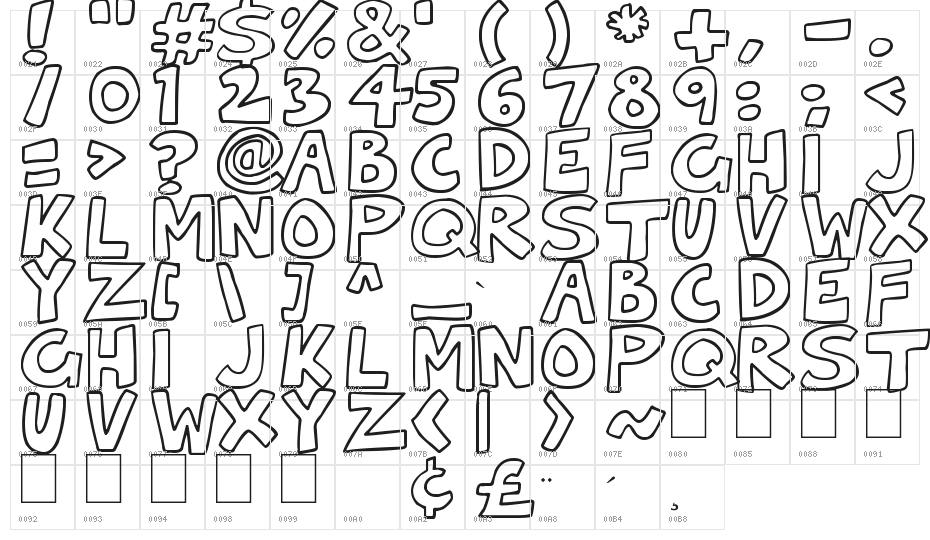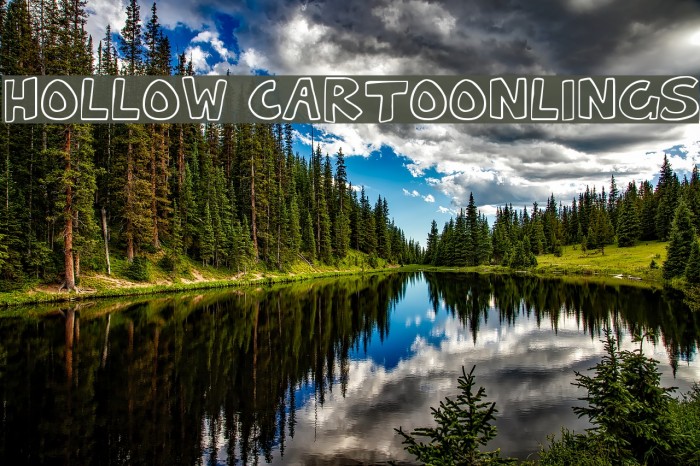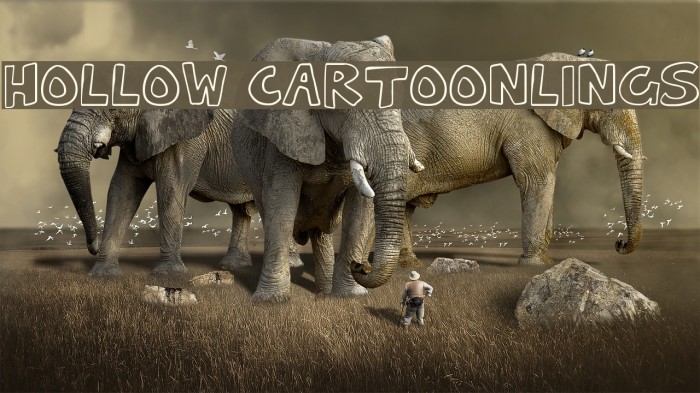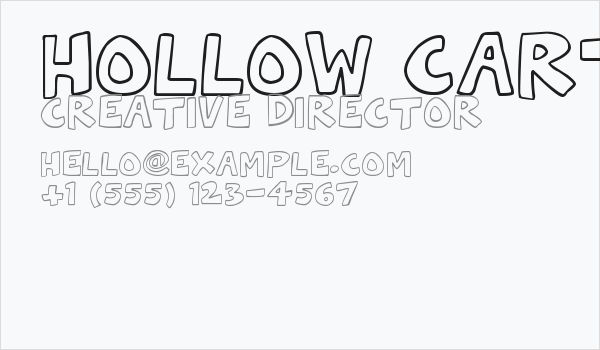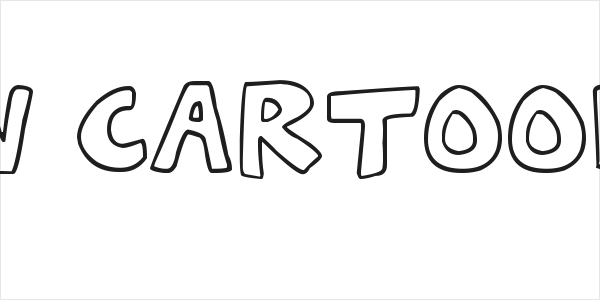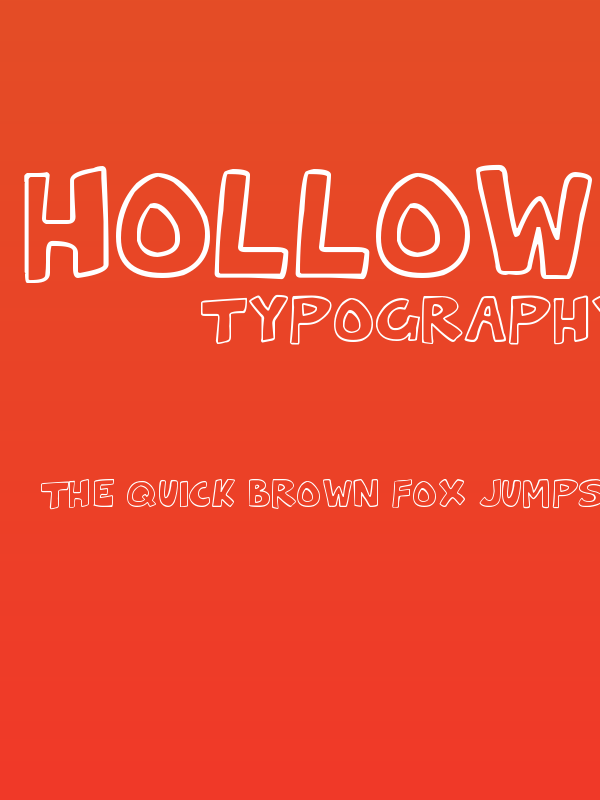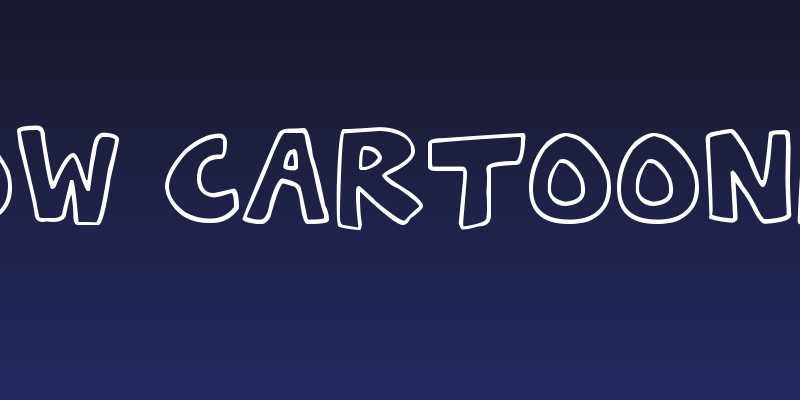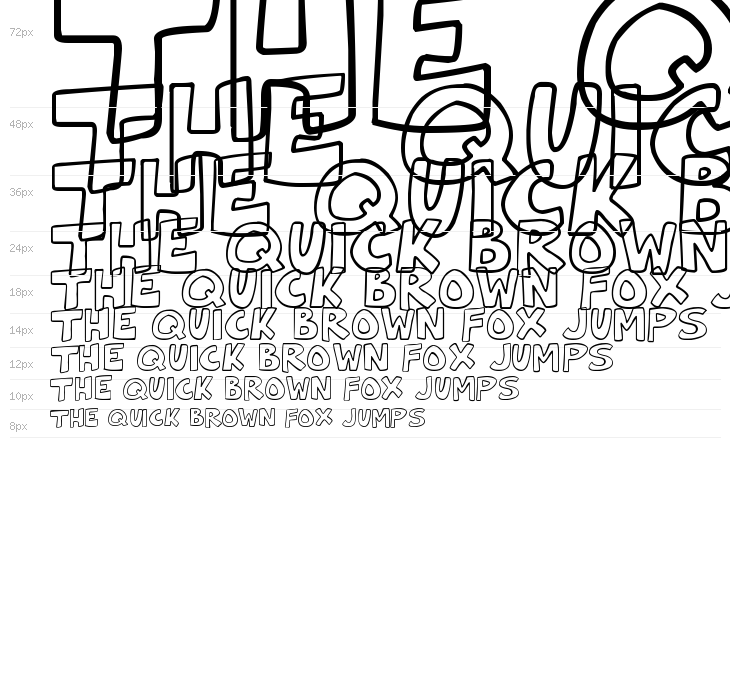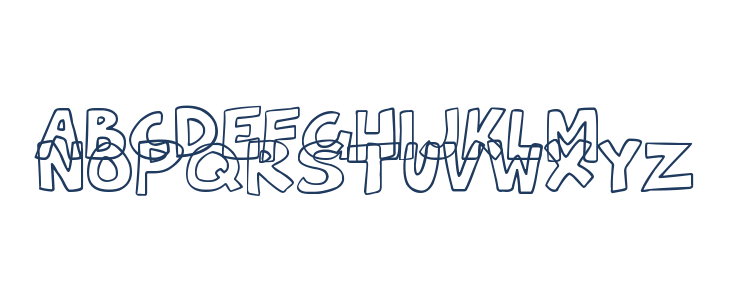
Hollow Cartoonlings Font
Hollow Cartoonlings Description
This playful and whimsical font features hollow, cartoon-like characters with a bold outline. Each letter and number is designed with a fun, informal style that evokes a sense of creativity and imagination. The characters are slightly irregular, adding to the charm and uniqueness of the font. The uppercase and lowercase letters maintain a consistent style, making it versatile for various design needs. The numbers and special characters are equally engaging, ensuring a cohesive look across all text elements.